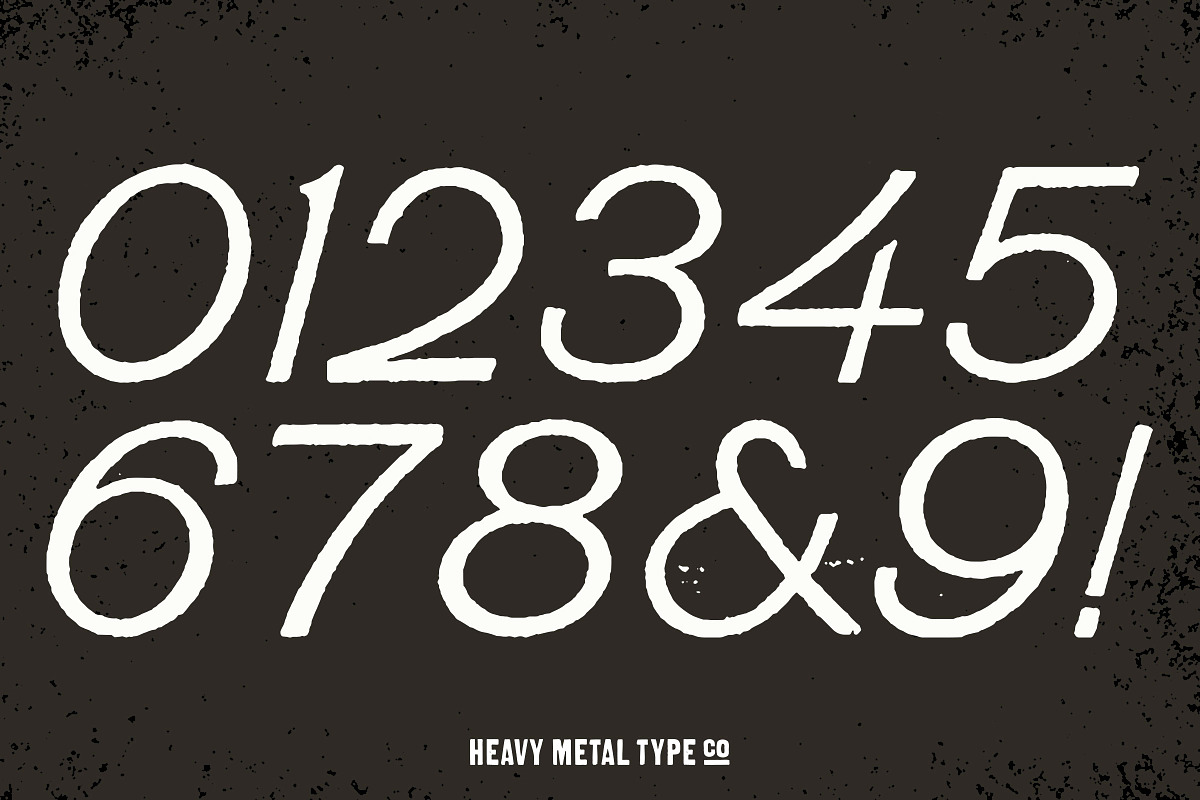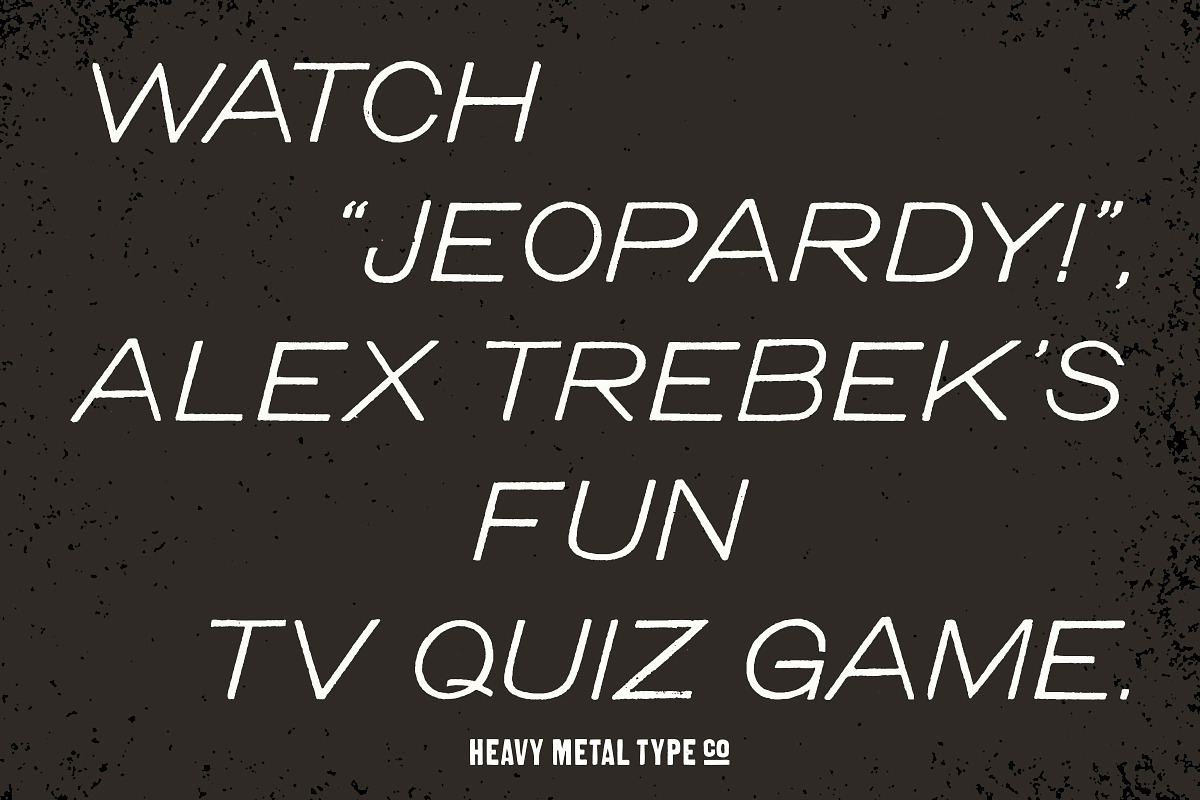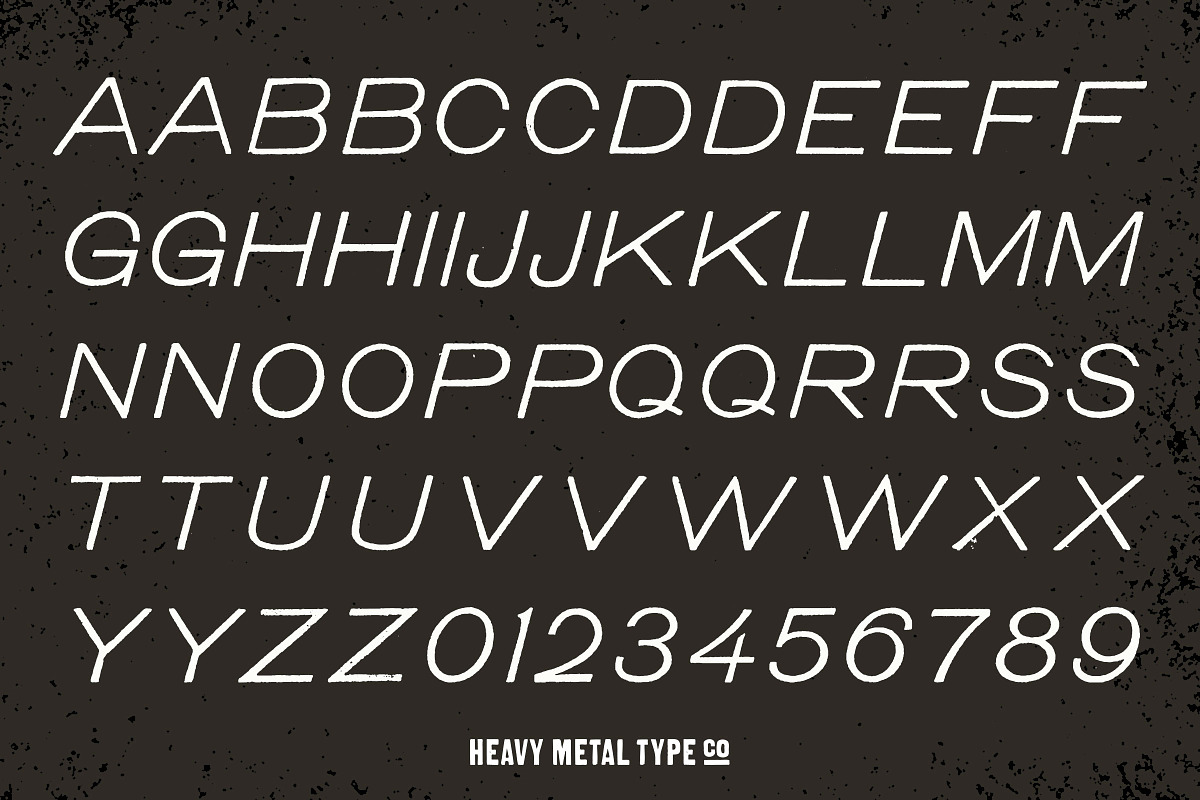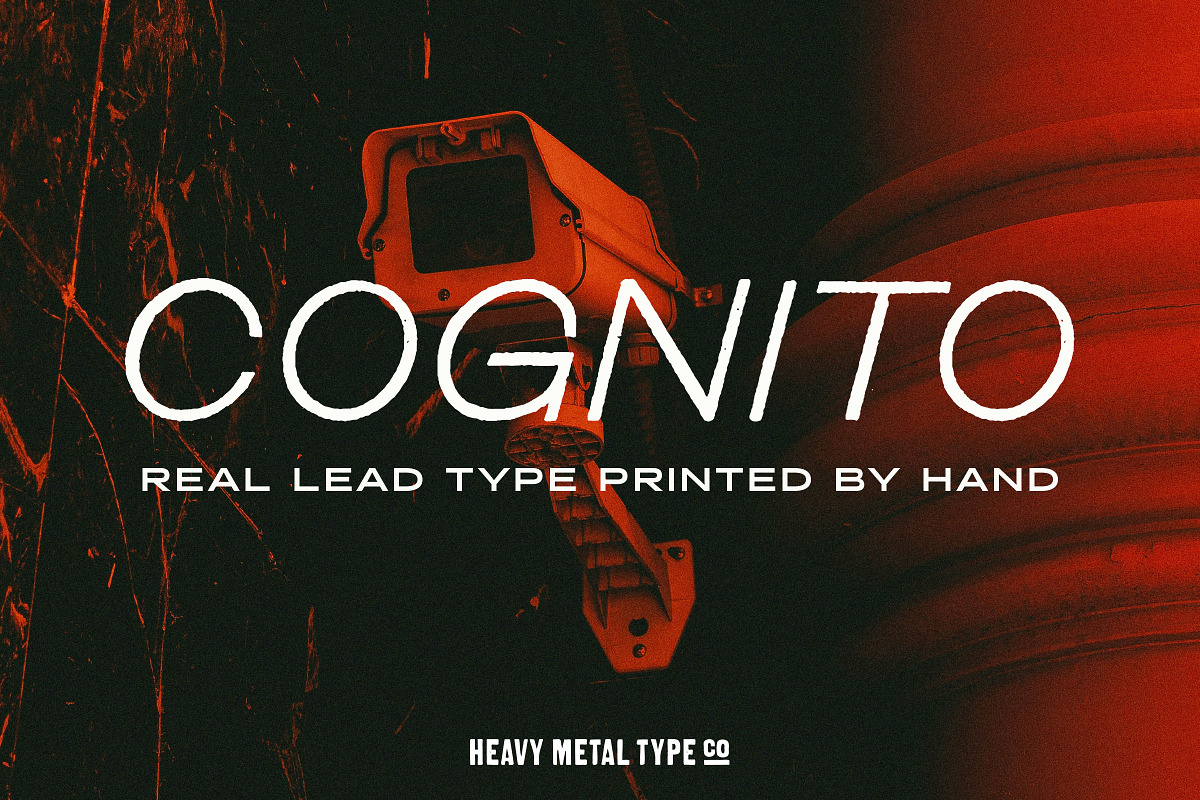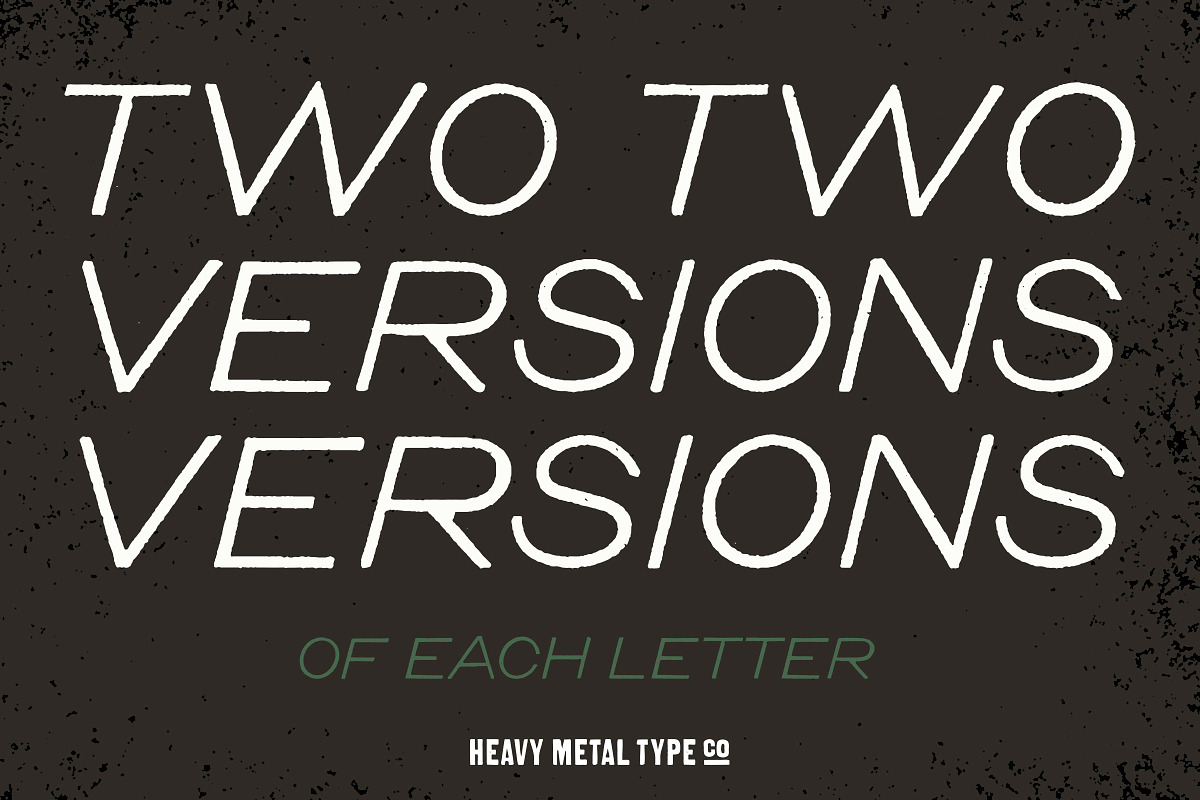
Letterpress Cognito
Real lead letterpress type, printed, scanned and turned into a digital font.
Letterpress Cognito is a dusty, decades-old sans serif italic found in an unlabeled type drawer. I pulled a single print—black ink on off-white paper—on my flatbed proofing press.
One face included. Full upper case letter set with two versions of most letters; limited character set.